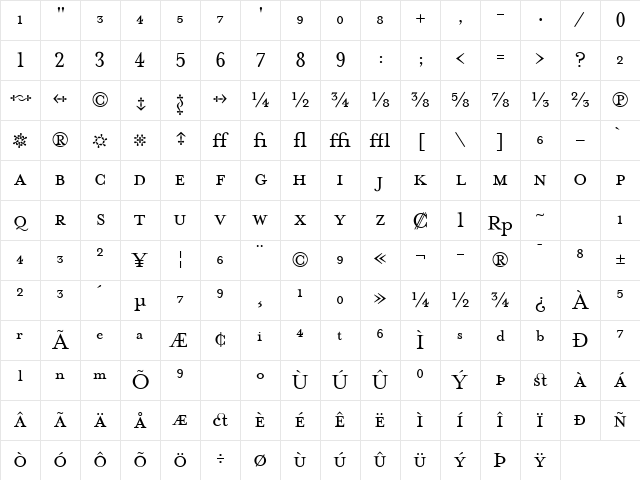
Complete MrsEavesFractions Regular glyph index. Displaying only characters natively supported by MrsEavesFractions Regular font.
MrsEavesFractions is a composed and adaptable typeface that performs quietly and consistently across a wide range of design contexts.
Who designed the MrsEavesFractions Regular font?
This font was published by (C) Emigre Graphics, Designed by Zuzana Licko. Check the technical specs section for copyright and designer details.